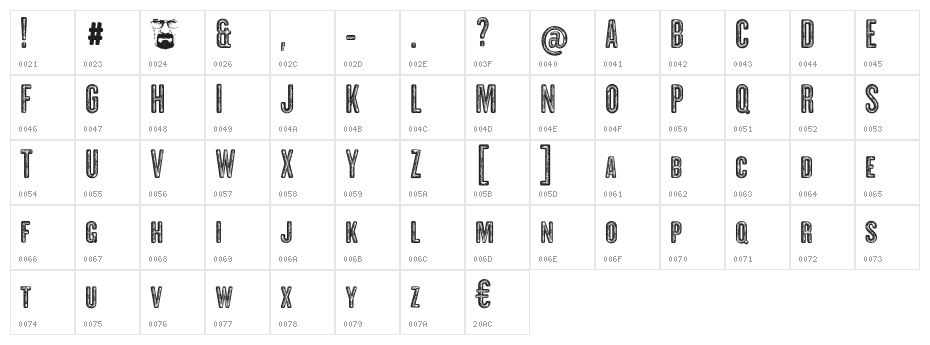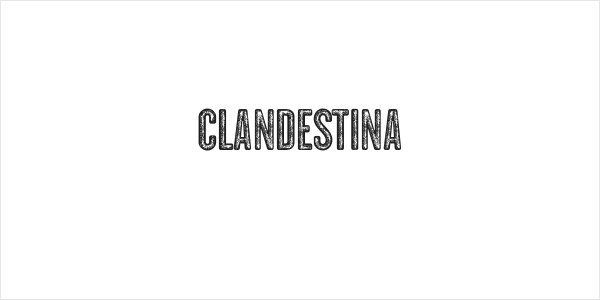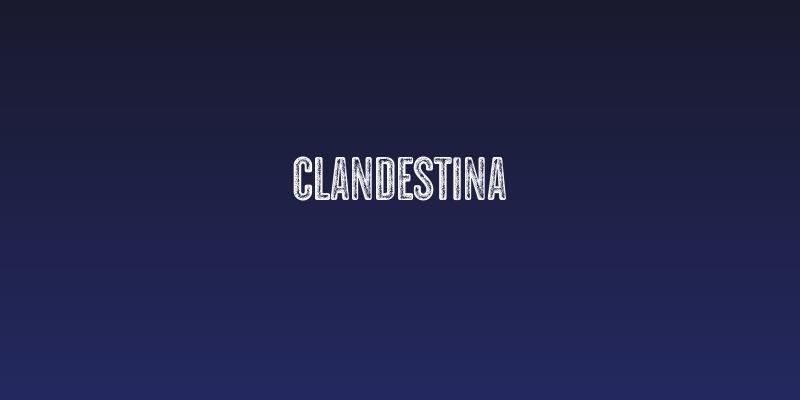
CLANDESTINA Font
CLANDESTINA Description
This font features a bold, distressed style with a textured appearance that gives it a rugged, vintage feel. The uppercase letters are tall and slightly condensed, with a consistent width that maintains readability. The lowercase letters mirror the uppercase in style, providing a cohesive look. The numbers and special characters share the same distressed texture, adding to the overall aesthetic. This font's unique character is perfect for projects that require a touch of nostalgia or a gritty, urban vibe.
| Proposed Projects | Ideal for posters, album covers, branding projects, and any design that seeks a vintage or gritty aesthetic. |